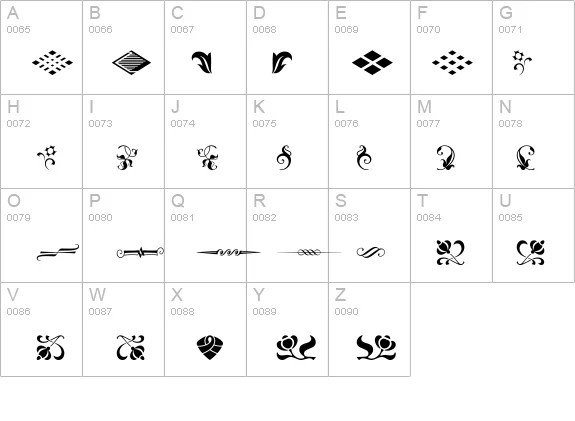
Embellished Fonts. Black swan bf™ by bomparte's fonts. Brush script mt is a heavily embellished script font designed to mimic quick handwritten strokes.
10 Best Decorative Embellishment Fonts (Commercial Use Dingbats) We’re Super Excited To Share This Group Of 10 Free Decorative Embellishment Dingbats Today!
A Type Trend That’s Been Brewing Over 2021 Is The Use Of Very Silky, Fluid Script Fonts That Blend Elements Of Art Nouveau With Calligraphic Style.